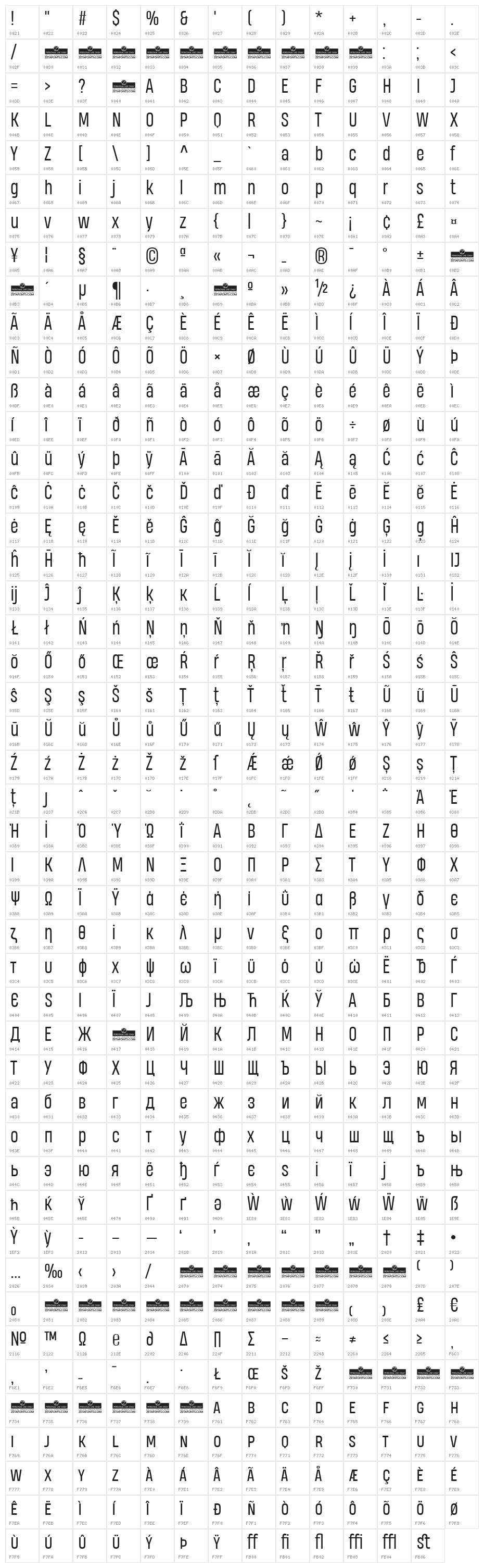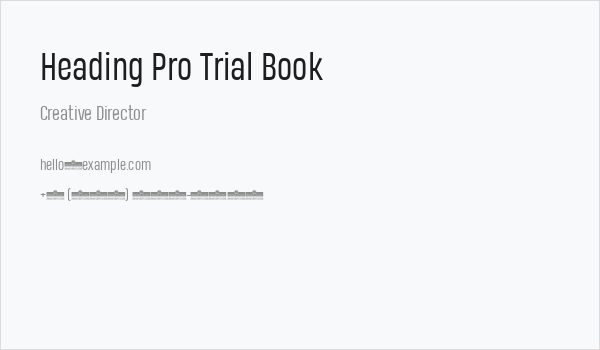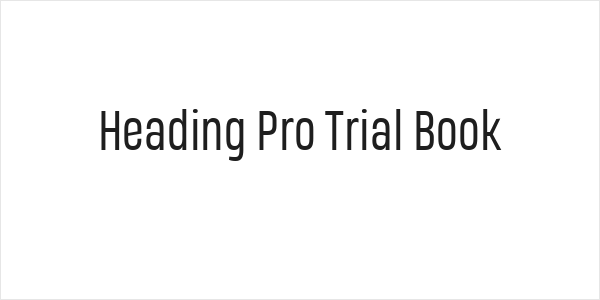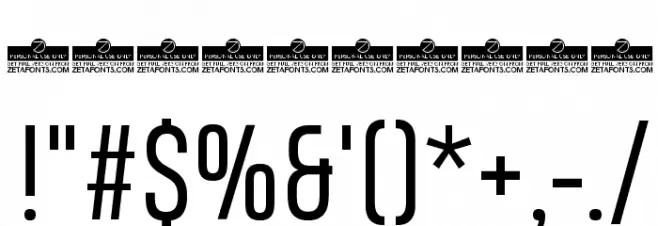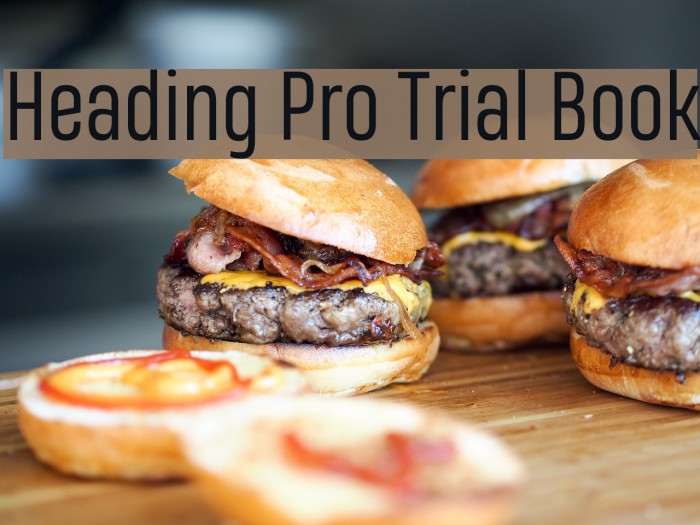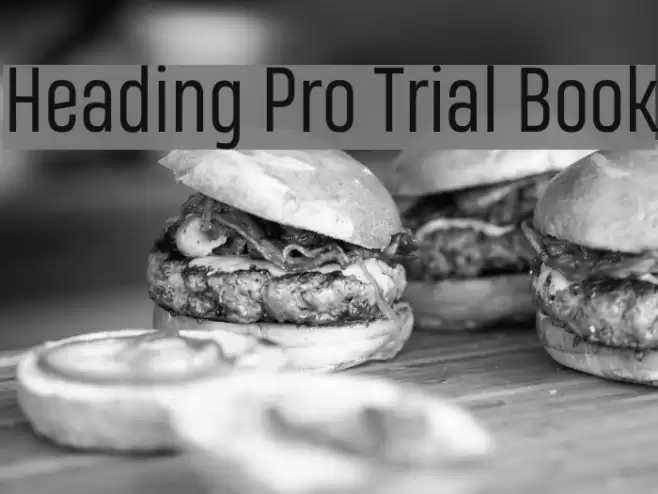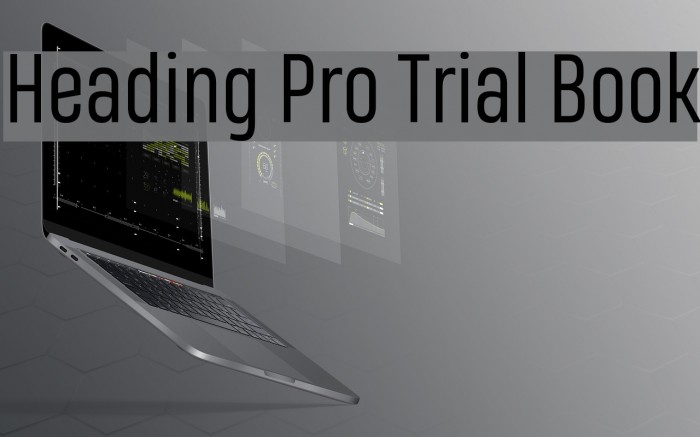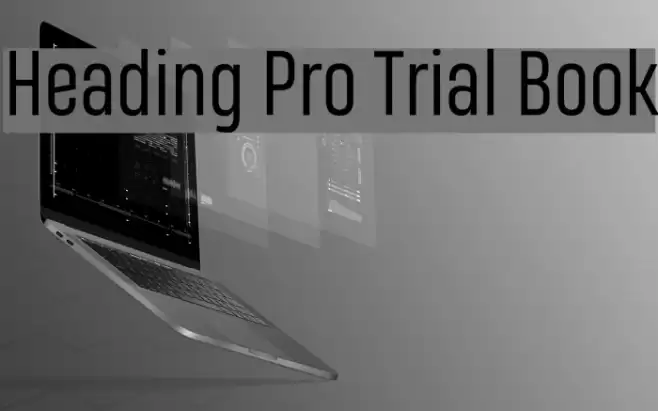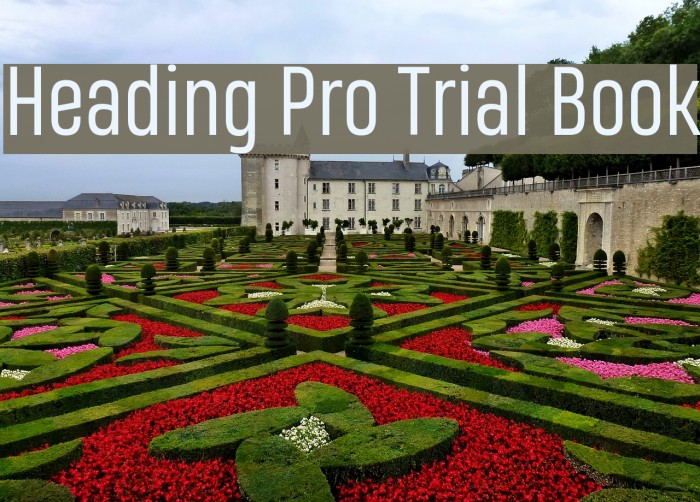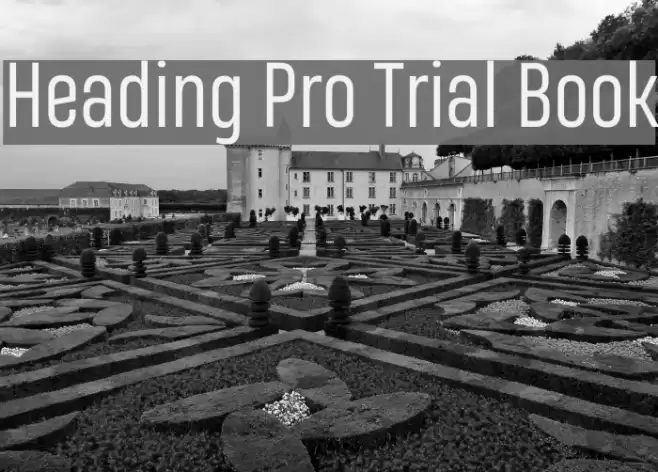
Heading Pro Trial Book Font
✎ Sans Serif
Heading Pro Trial Book Description
This font features a clean and modern sans-serif style with a geometric structure. The characters are tall and narrow, providing a sleek and professional appearance. The uppercase letters are uniform in height, while the lowercase letters maintain a consistent baseline with slight variations in ascenders and descenders. The numerals are proportional, matching the overall height of the uppercase letters. Special characters are designed to complement the main character set, maintaining the font's minimalist aesthetic. The font's simplicity and clarity make it suitable for a wide range of applications, from digital interfaces to print media.
| Use Case | Headlines, Body text, Logos |
| Proposed Projects | Ideal for corporate branding, digital interfaces, editorial design, and advertising. |